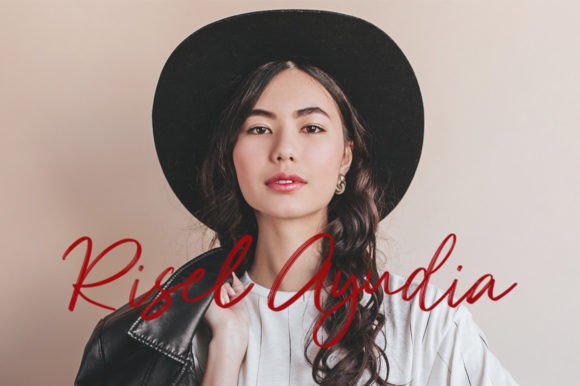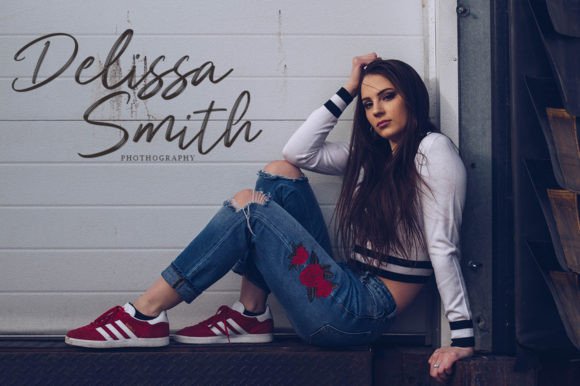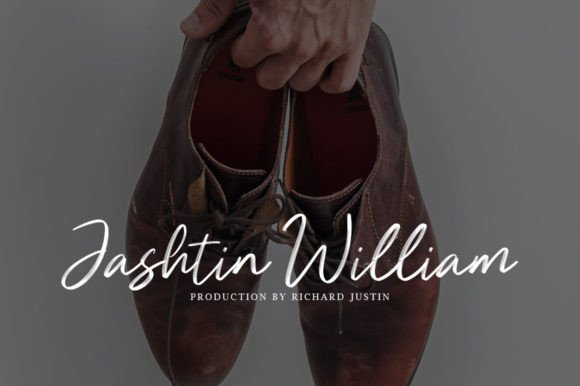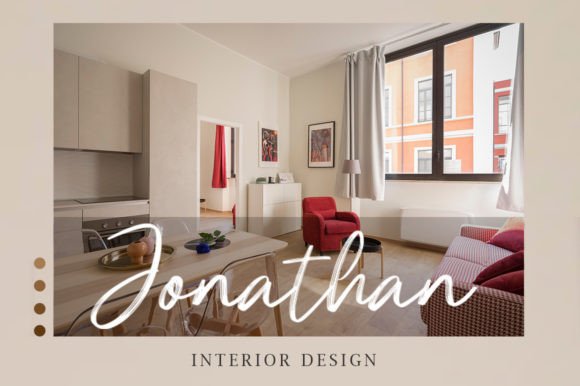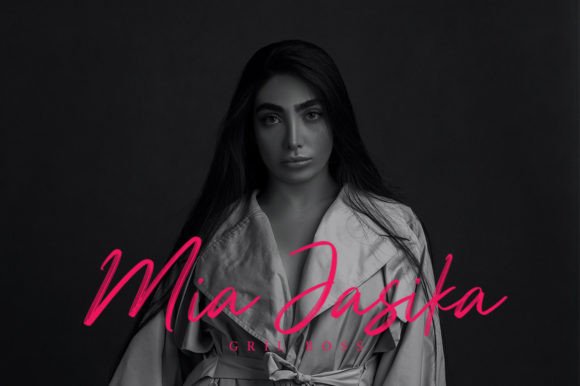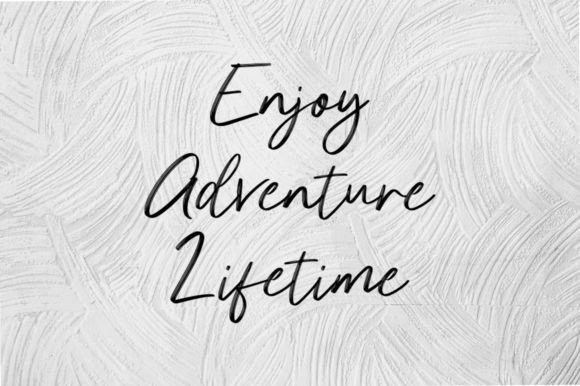
About Brush Signature Font
Brush Signature is a fashionable and elegant handwritten font. It has a distinctive style with a modern touch, which will add a luxurious feel to your designs. It’s perfect for branding, logos, business cards, posters, invitations, greeting cards, news, product packaging, blog posters, or anything that needs a stylish accent.